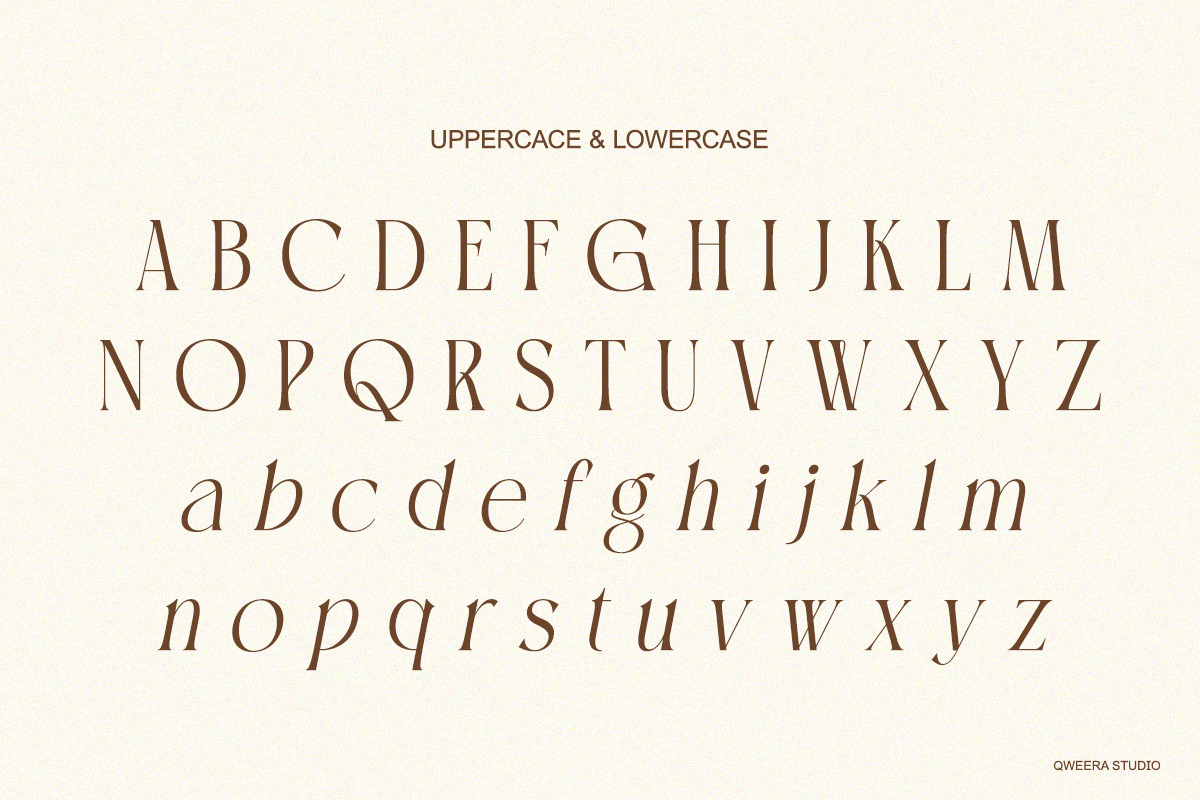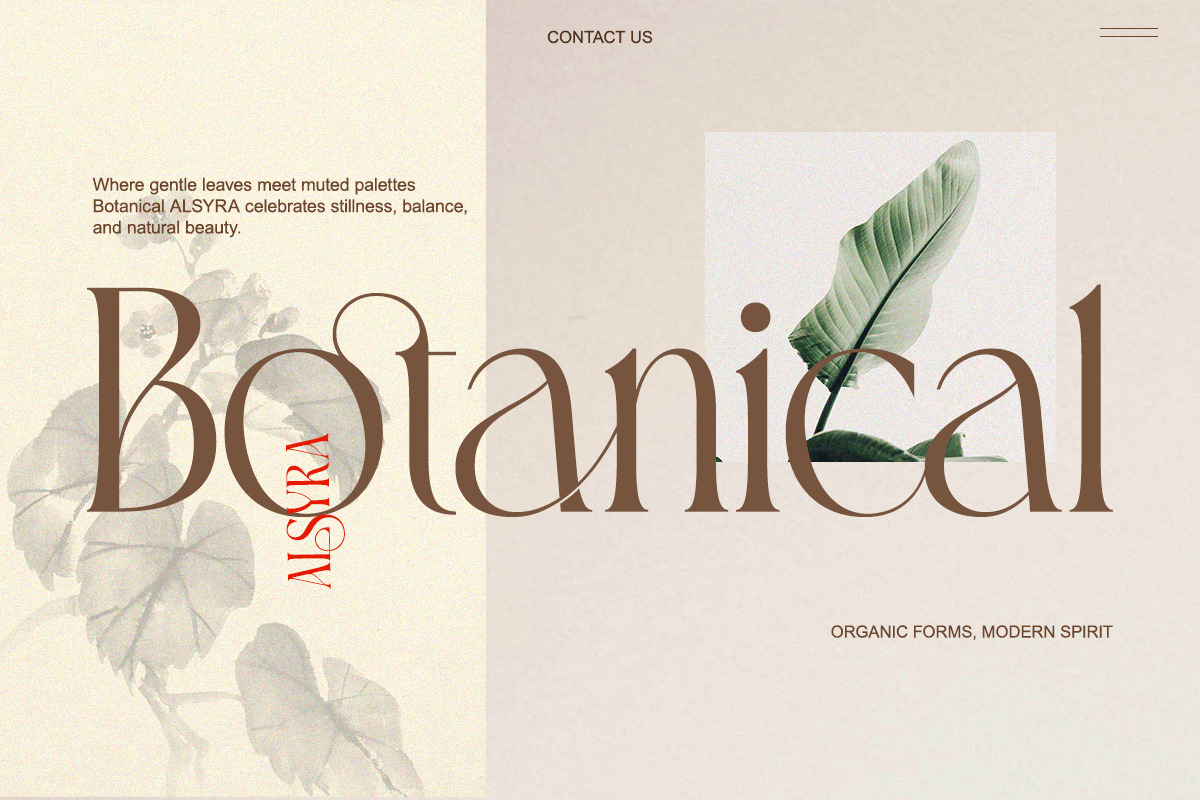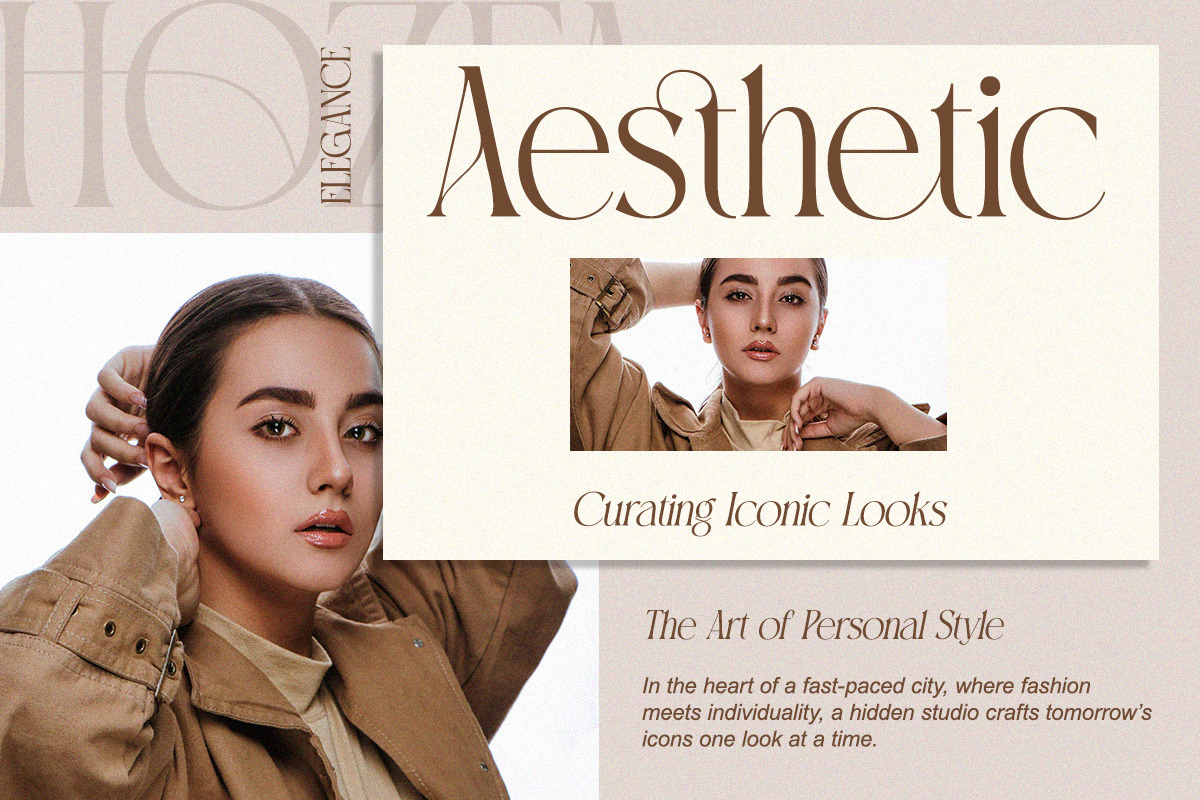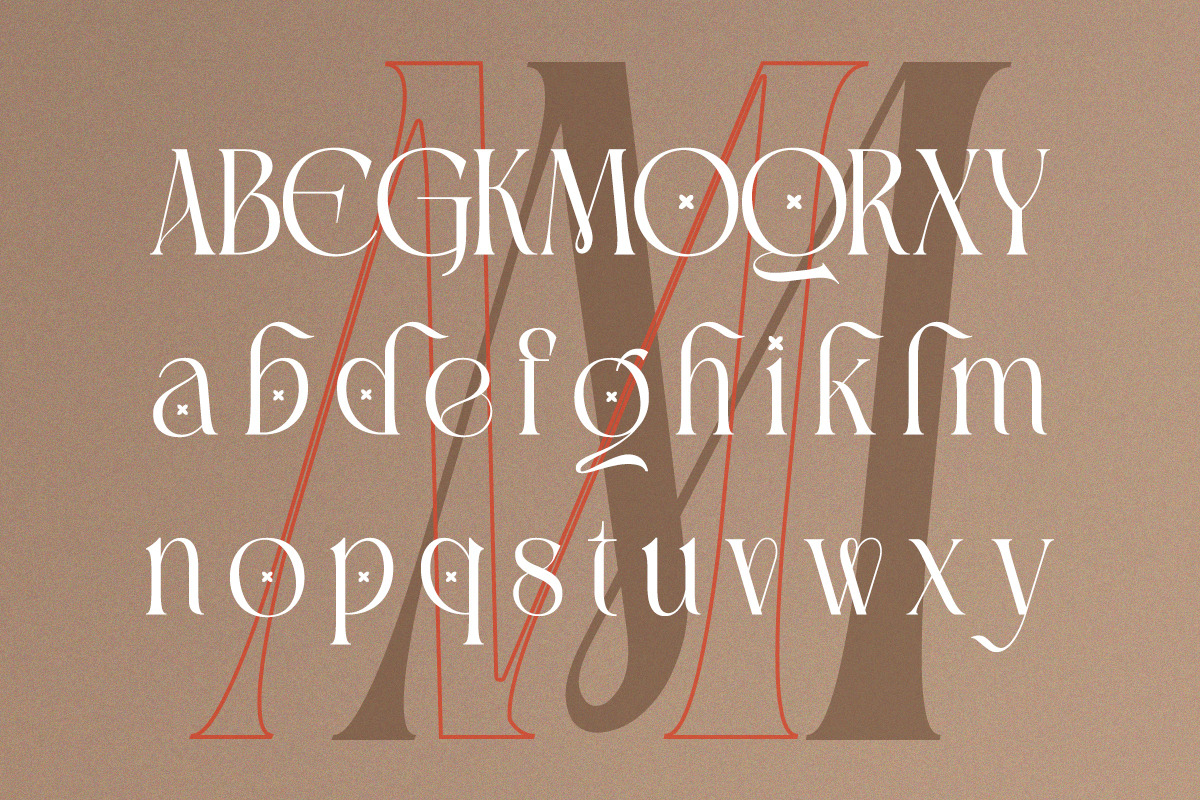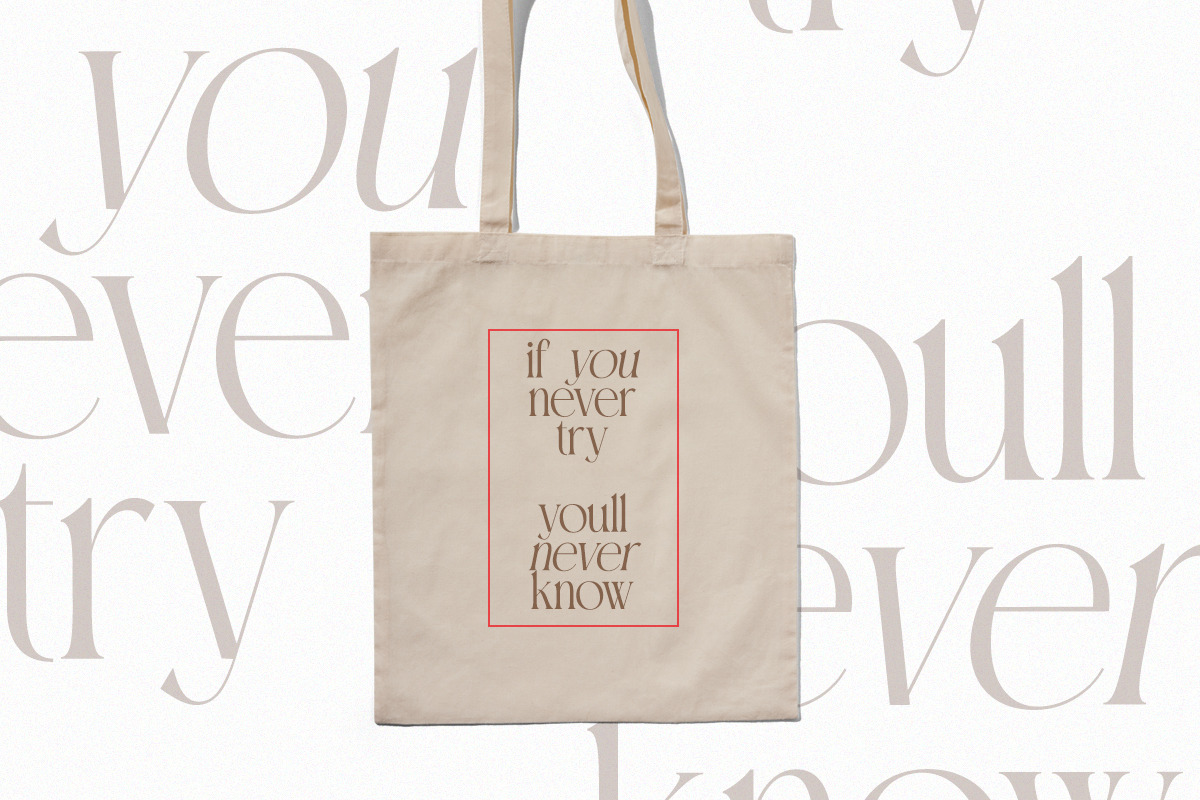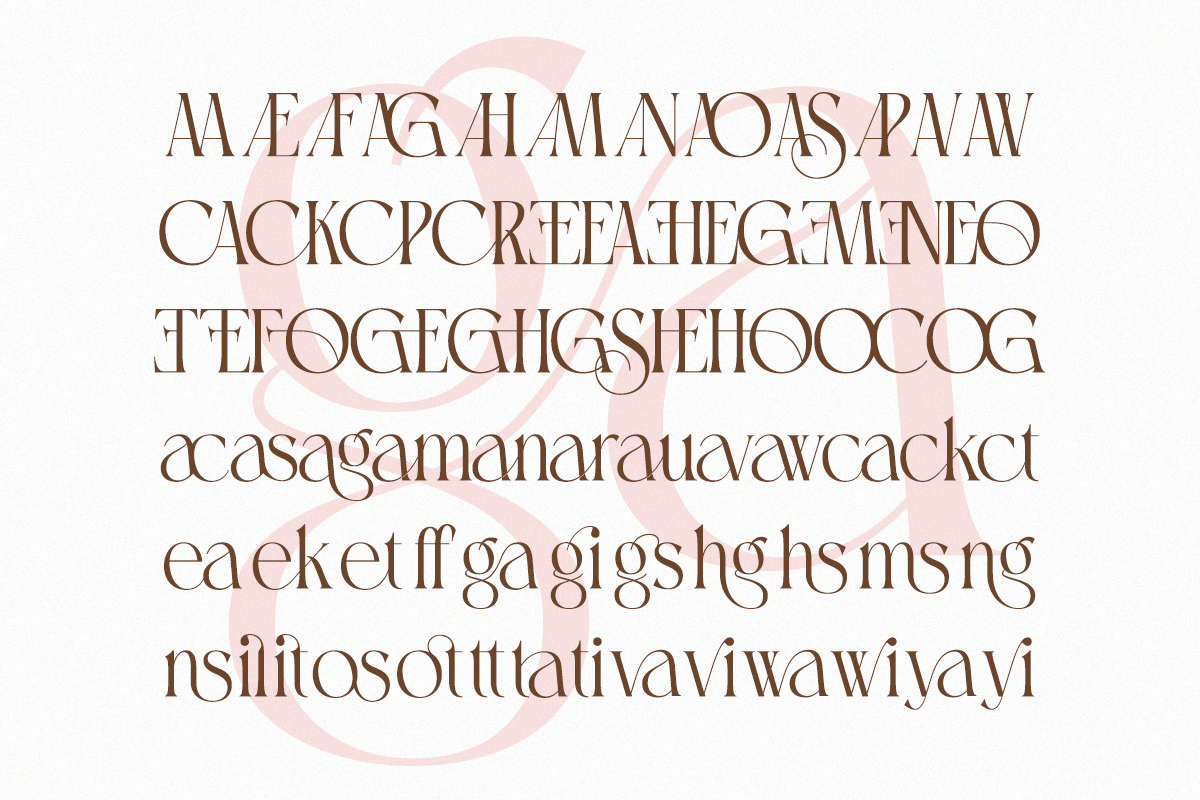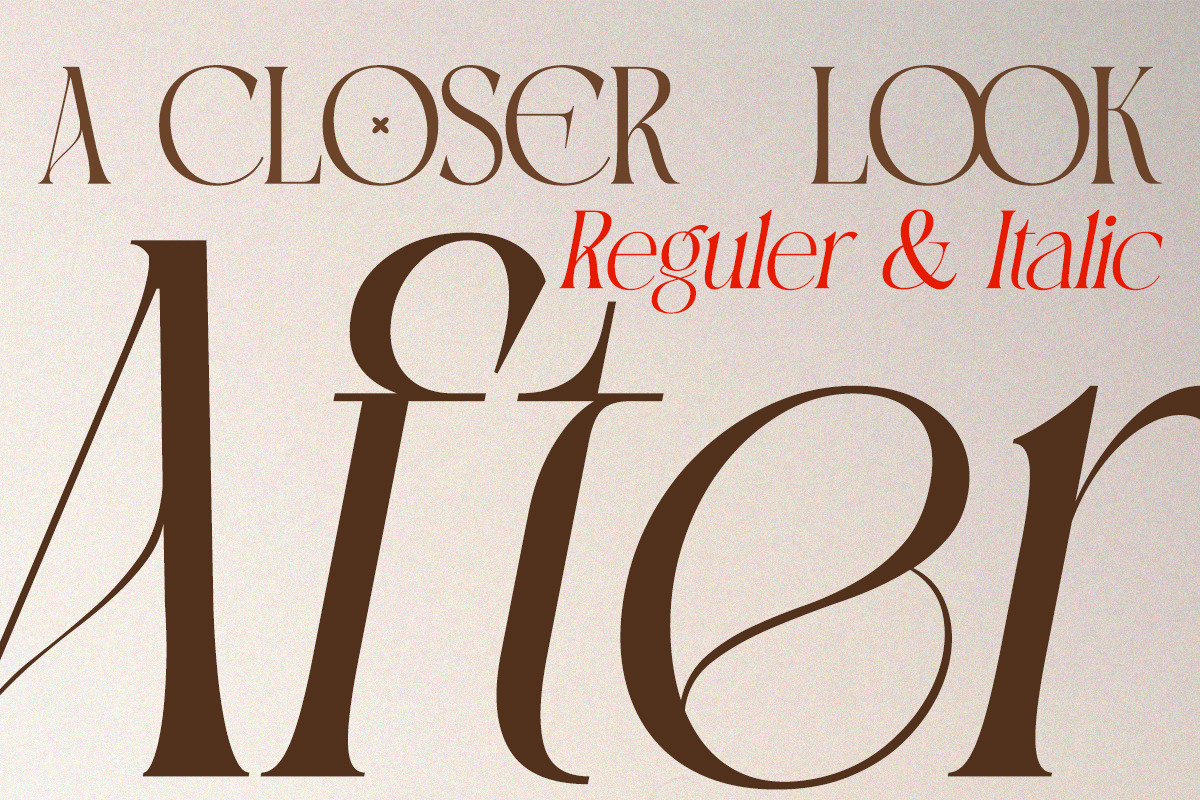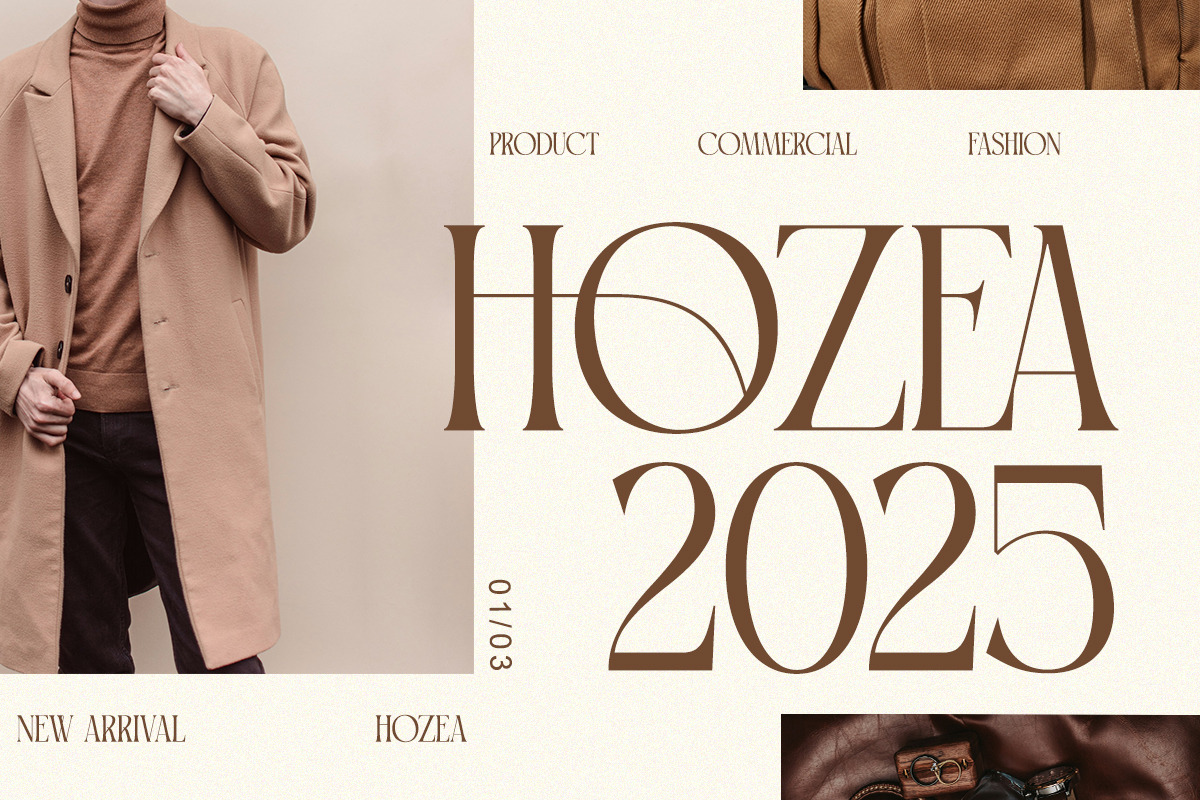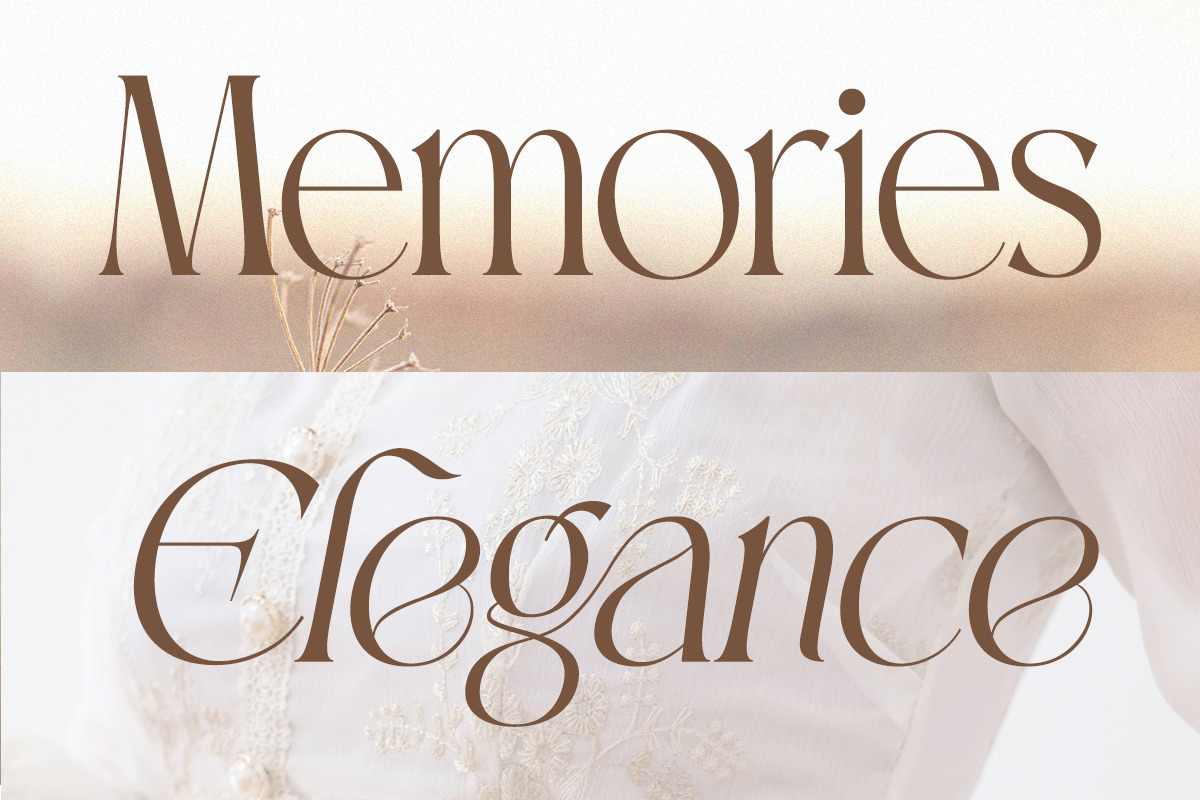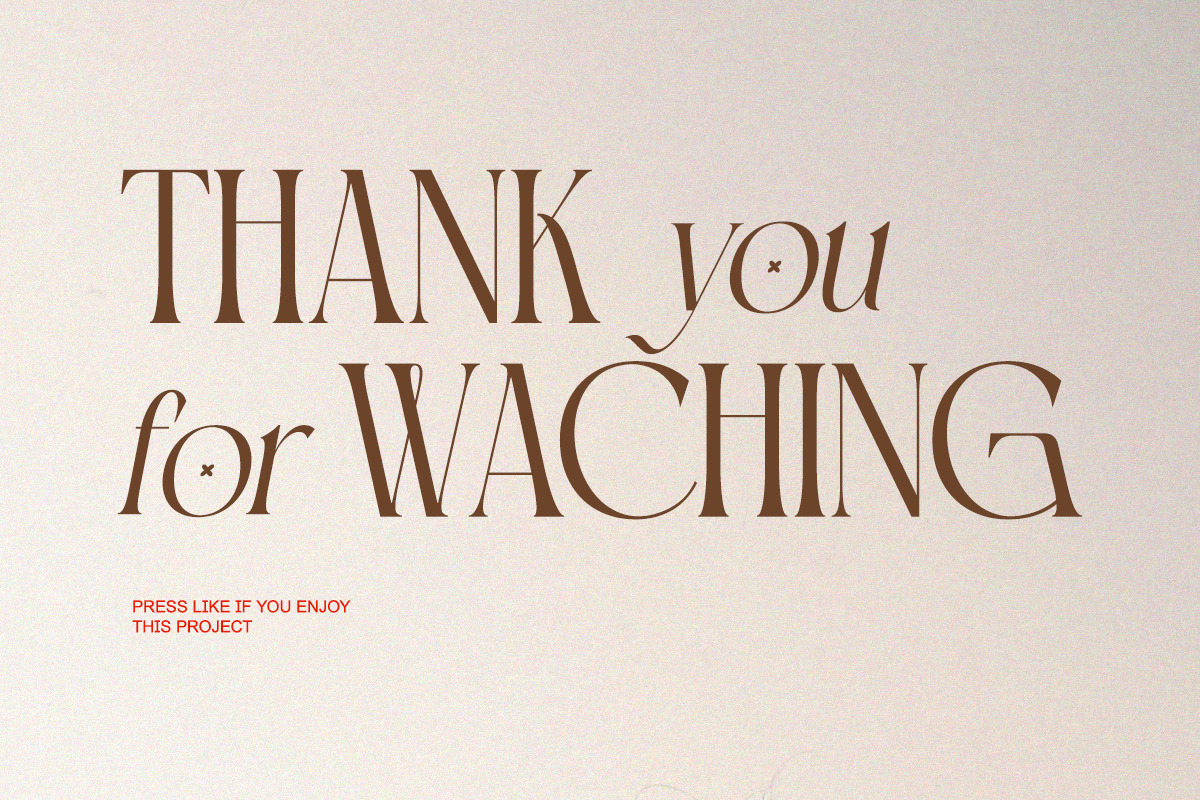
Canindya - Modern Elegant Luxury
Canindya is a refined modern serif typeface crafted with elegance and versatility.
With graceful curves, sophisticated alternates, and stylish ligatures, Canindya brings a timeless luxury touch to every project. Perfect for branding, packaging, wedding stationery, magazines, and logos, this typeface blends modern aesthetics with classic refinement. Each letter is designed with unique flair, making it stand out as both a display font and a versatile workhorse for high-end designs.
- Modern luxury serif style
- Elegant alternates & ligatures
- Regular & Italic style with refined details
- Luxury branding & identity design
- Fashion editorials & lookbooks
- Wedding invitations & stationery
- Premium packaging & labels
- Magazine layouts & covers
- Elegant logo & monogram design
Elevate your visual identity with timeless sophistication.